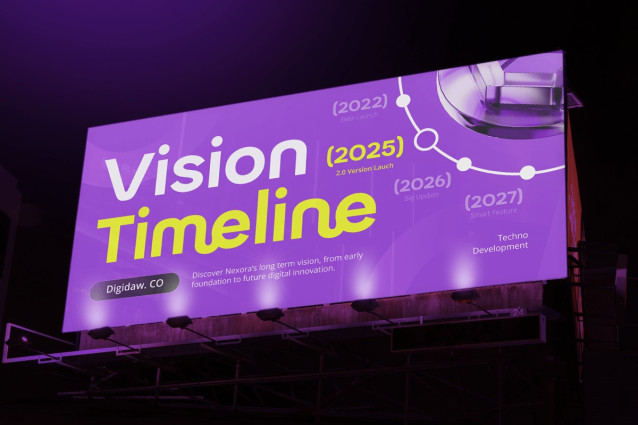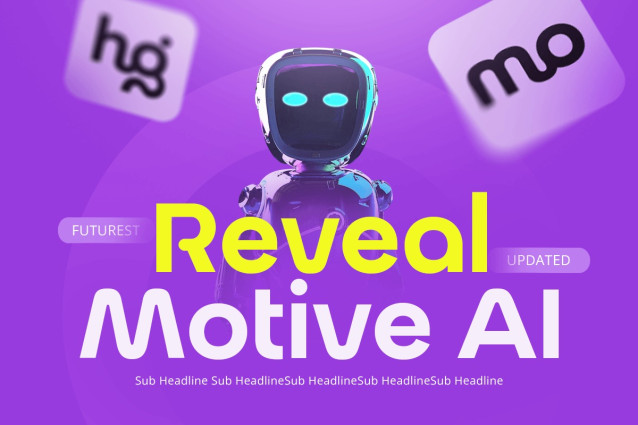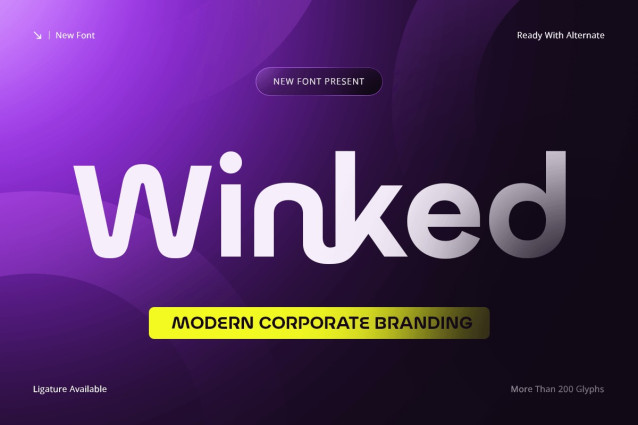
Winked Font
Winked Font — Modern Corporate Branding Font is a professional display typeface designed to help businesses establish a strong, trusted, and contemporary brand presence. Inspired by modern corporate identity systems and clean, professional typography, Winked is designed for brands that value clarity, consistency, and professionalism.
With its refined letterforms, balanced proportions, and modern structure , Winked offers a sophisticated visual appearance that works perfectly across corporate branding, marketing, and communication materials. Its clean and versatile design makes it an excellent choice for organizations seeking a professional and lasting impression.